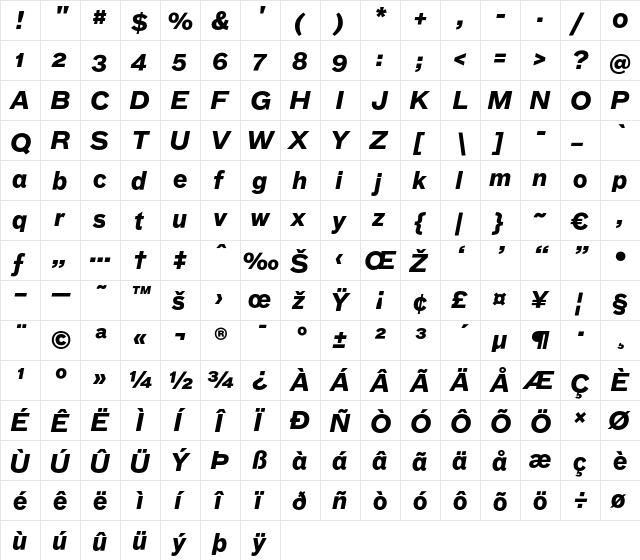
Bau-BoldItalic Regular
Design Context for Bau-BoldItalic Typeface
Bau-BoldItalic takes a measured approach to typography — its balanced proportions and neutral character make it a reliable workhorse for both digital and print work. Its italic angle brings a sense of urgency and motion to the letterforms. Its bold stroke weight gives it real presence on the page.
Pro Tip: Use Bau-BoldItalic for emphasis, pull quotes, and subheadings where its slanted energy can add rhythm to the layout.